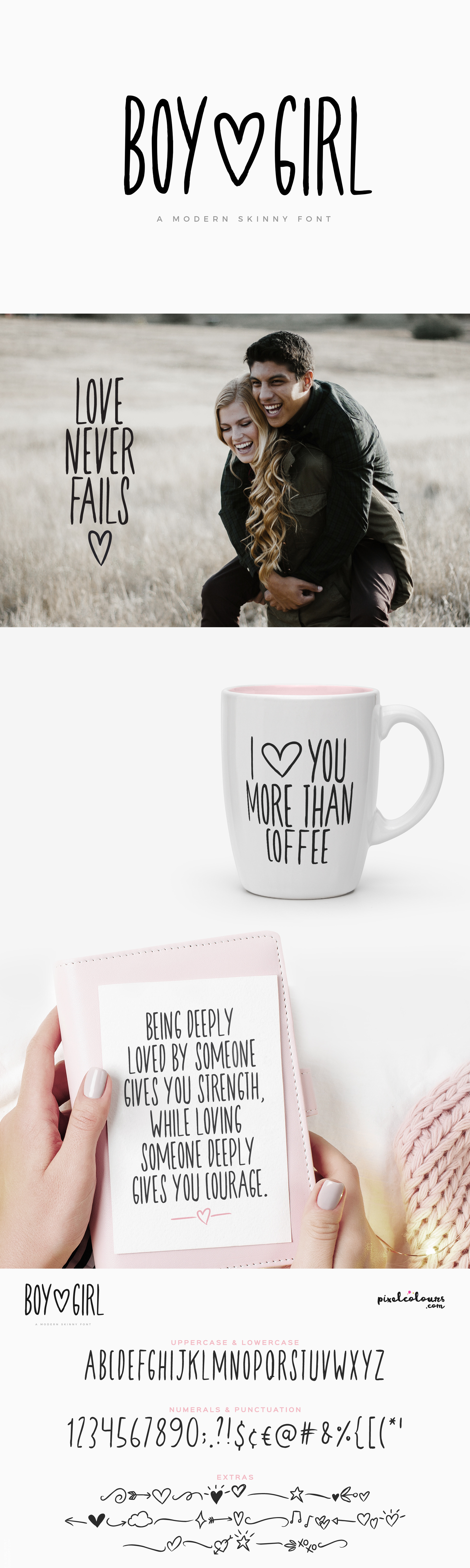
Skinny Font Boy and Girl
An imperfect modern skinny font full of love with extra clipart to make your designs more fun! Great for quotes, logos, titles, recipes, social media posts, etc.